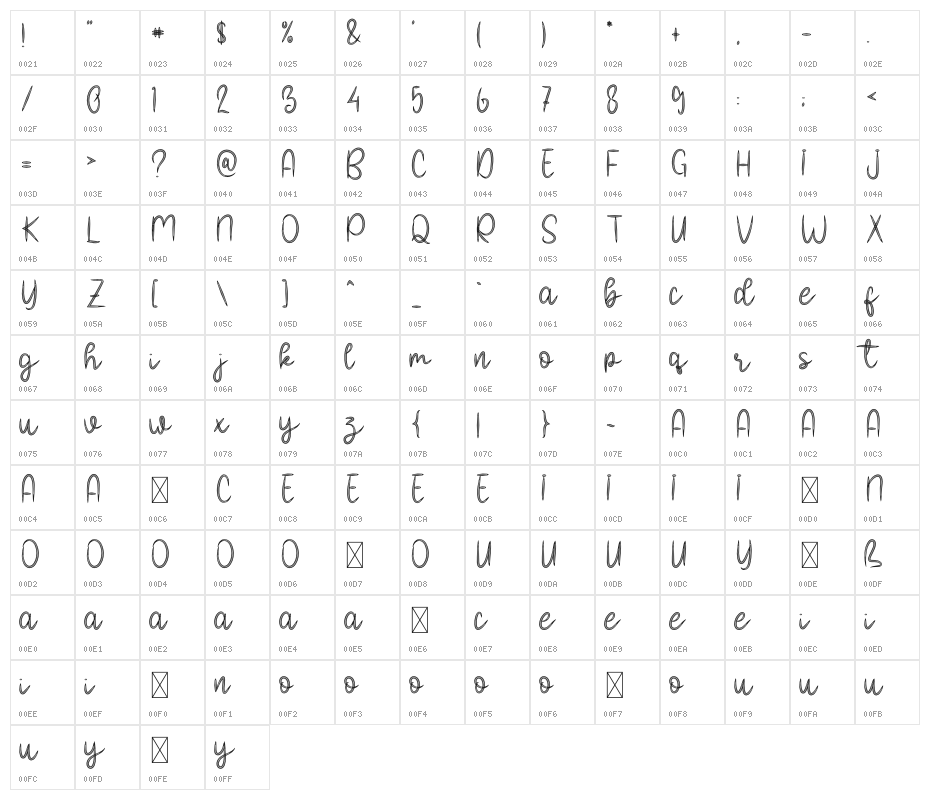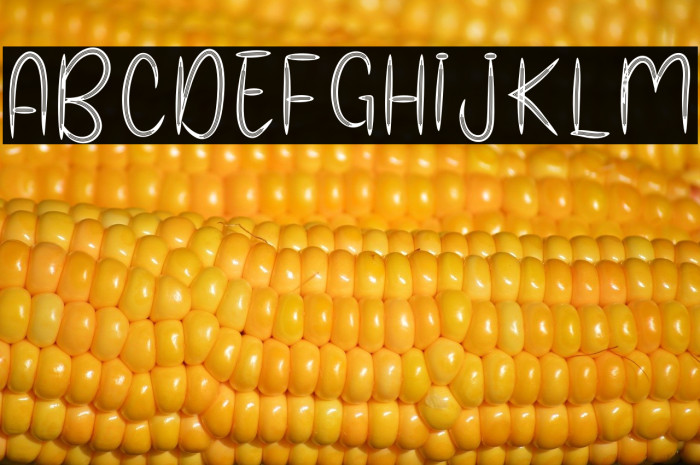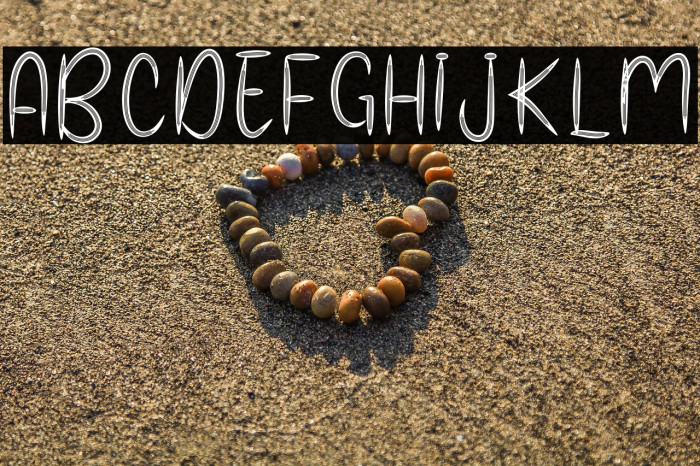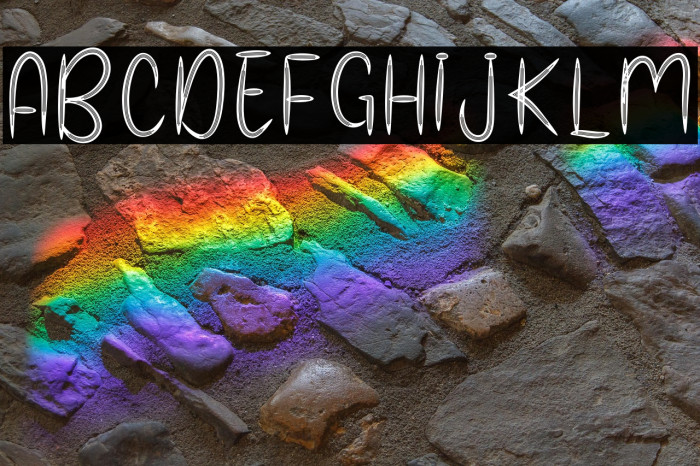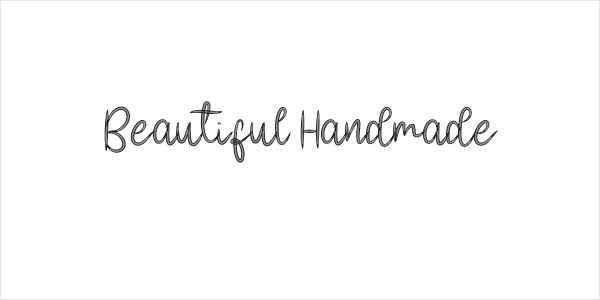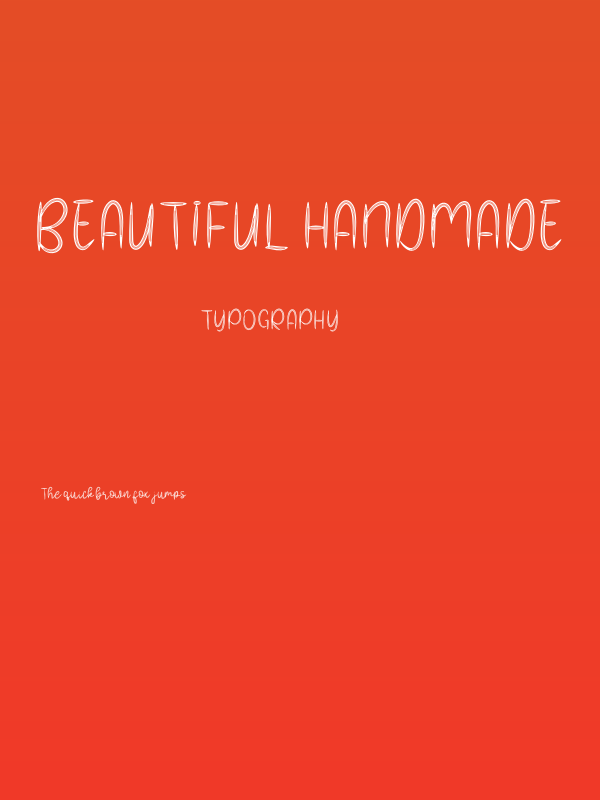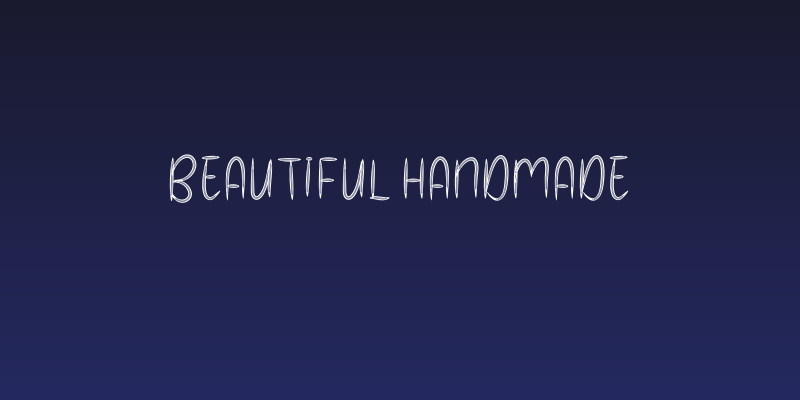
Beautiful Handmade Font
Beautiful Handmade Description
This font features a whimsical, hand-drawn style that exudes a playful and artistic vibe. The letters are characterized by their flowing, cursive-like strokes, giving them a sense of movement and fluidity. Each character is uniquely crafted, with a slight variance in line thickness that adds to the handmade aesthetic. The uppercase letters maintain a consistent height, while the lowercase letters exhibit a charming irregularity, enhancing the font's organic feel. Numbers and special characters are designed with the same playful touch, making them blend seamlessly with the alphabet. This font is perfect for projects that require a personal, creative touch.